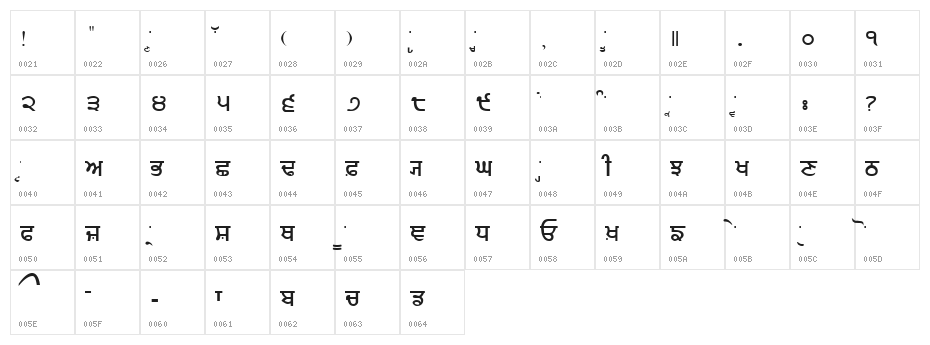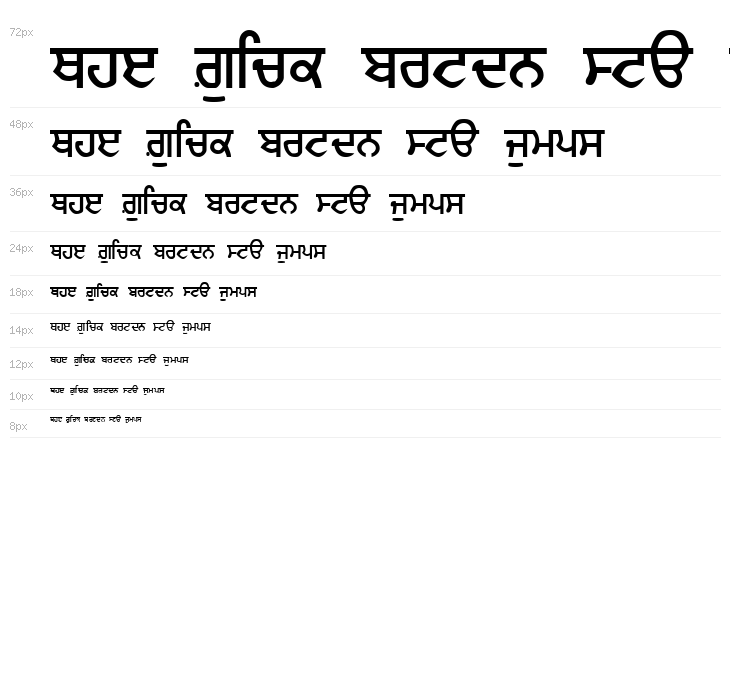
Gurmukhi_IIGS Font
Gurmukhi_IIGS Description
This font is a bold and striking representation of the Gurmukhi script, characterized by its thick strokes and strong presence. The characters are well-defined with a consistent stroke width, providing a sense of uniformity and balance. The font maintains a traditional aesthetic while incorporating modern elements, making it suitable for both contemporary and classic designs. The numerals and special characters are designed to complement the script, ensuring readability and visual appeal. This font is ideal for projects that require a cultural touch or a bold statement.
| Use Case | Headlines, Logos, Signage |
| Proposed Projects | Ideal for cultural publications, signage, branding, and educational materials. |